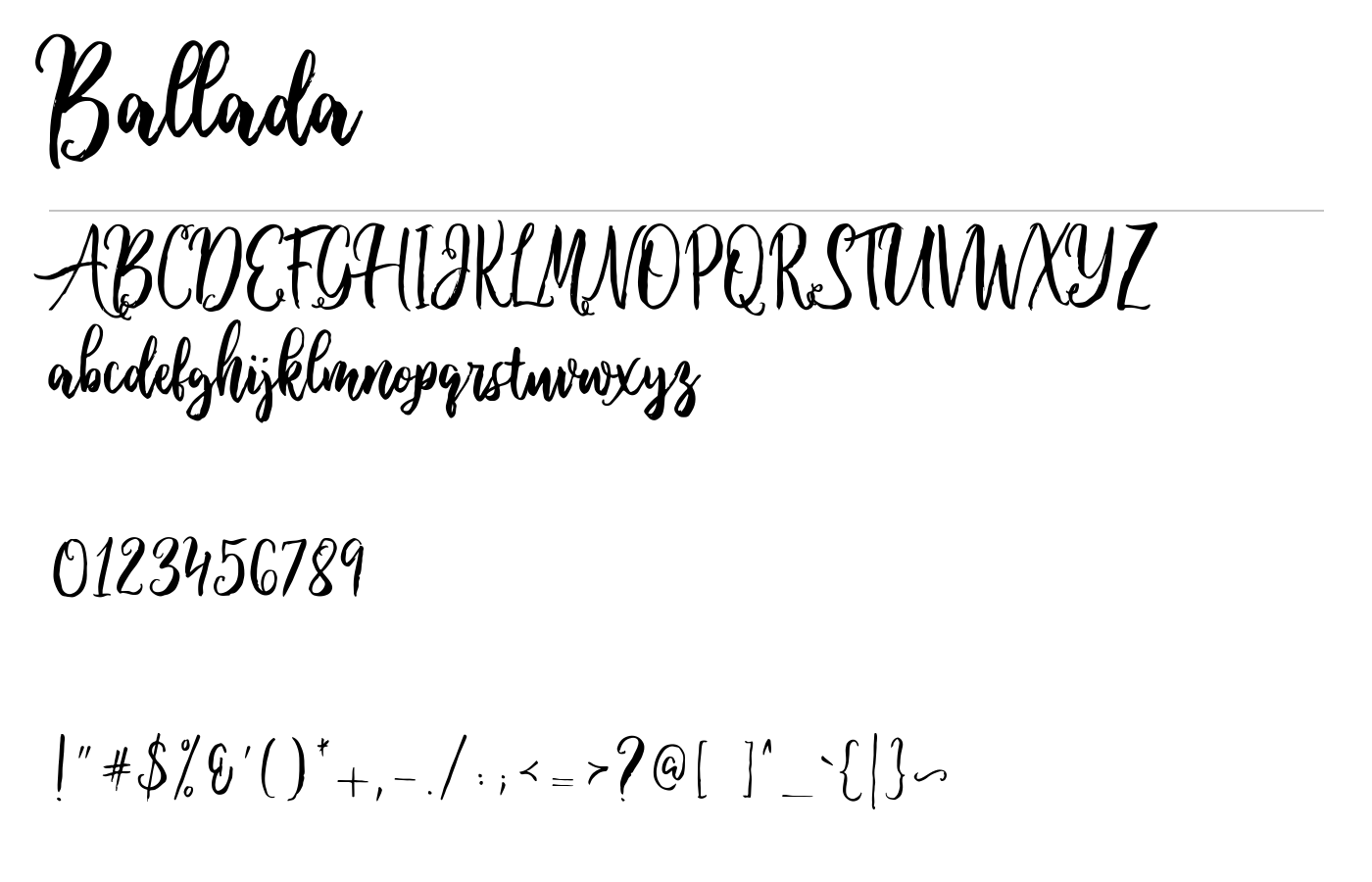
Ballada is a lively script font with a handwritten feel, featuring elegant, flowing strokes and playful flourishes that give it a personal, artistic touch. Its medium weight and moderate contrast, combined with distinctive letterforms and smooth curves, make it ideal for creative branding, invitations, and headlines where a warm, charming personality is desired. This font works beautifully in designs seeking a friendly yet sophisticated vibe, perfect for fashion, lifestyle, and boutique projects.
Ballada Font